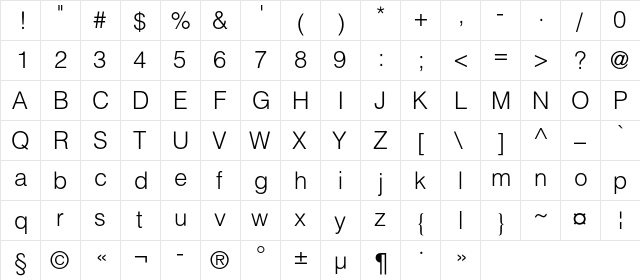
HeliosLight Regular Font Preview
HeliosLight Regular
Design Context for HeliosLight Typeface
HeliosLight offers clean, dependable letterforms without strong stylistic allegiance, making it a practical choice for designers who need flexibility. Its slender proportions lend an understated elegance to any composition.